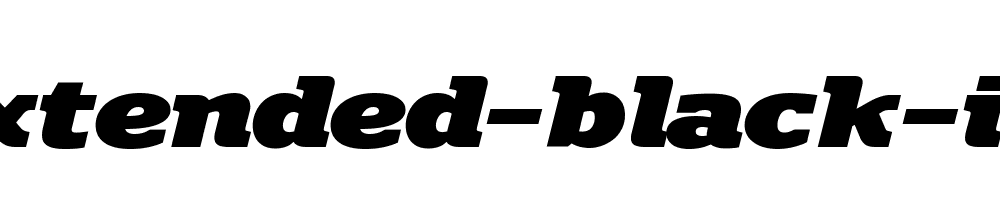
polyphonic-extended-black-italic-webfont
About polyphonic-extended-black-italic-webfont
The font “polyphonic-extended-black-italic-webfont” showcases a blend of sharp edges and sleek curves, creating a striking and bold appearance ideal for making a statement. The font’s apertures are generous, adding to its readability, while the apexes are sharp and distinct. The arc of the letters flows elegantly, giving the font an air of sophistication. Each arm is carefully crafted, contributing to the font’s overall balance. The ascenders are tall and proud, contrasting beautifully with the deep descenders that add a sense of drama. The font’s axis is straight and sturdy, providing a solid foundation for each character. The bilateral serifs are sharp and pointy, adding an element of modernity to the design. The bowls are generous and round, creating a harmonious effect when combined with the brackets. The counters are closed, giving the font a dense and compact look. The crossbars are strong and authoritative, adding to the font’s overall sense of stability. The crotch of each letter is carefully designed, adding a unique touch to the font’s overall aesthetic. The descenders are long and elegant, balancing out the tall ascenders. The ears of the font are small but impactful, adding character to each letter. The eyes are open and friendly, inviting the reader to engage with the text. The finials add a touch of flair to the font, giving it a distinctive and memorable look. The feet are sturdy and well-balanced, providing a strong foundation for each character. The font’s hairline strokes are delicate and refined, contrasting with the bold main strokes. The head serifs are sharp and angular, adding a modern twist to the design. The joints are seamless, creating a smooth overall appearance. The legs of the font are straight and confident, adding to its overall sense of stability. The ligatures are well-crafted, enhancing the flow between letters. The links connecting the necks are subtle but effective, creating a cohesive look. The loops are round and full, adding a playful touch to the font’s design. The overhangs are carefully balanced, creating a sense of movement and flow. The serifs are sharp and precise, adding a touch of sophistication to the font. The shoulders are broad and confident, giving the font a strong presence on the page. The spine of each letter is straight and tall, adding to the font’s overall sense of elegance. The spurs are sharp and defined, contributing to the font’s bold and striking appearance. The stems are robust and well-defined, providing a solid backbone for each character. The stress of the font is evenly distributed, creating a sense of harmony and balance. The tails are long and elegant, adding a touch of drama to the font’s overall appearance. The tittles are small but impactful, adding a touch of whimsy to the design. The terminals are sharp and precise, adding a sense of finality to each letter. The vertex of each character is sharp and well-defined, contributing to the font’s overall sense of precision and attention to detail.
Classified as Expressive, the font “polyphonic-extended-black-italic-webfont” is perfect for making a bold statement and commanding attention. Its sharp edges and sleek curves give it a modern and edgy look, while its generous apertures and elegant arcs add to its overall readability and sophistication. The font’s bold weight and italic style make it ideal for creating eye-catching headlines and titles that demand to be noticed. With its blend of classic serif elements and contemporary design details, this font strikes the perfect balance between traditional and modern aesthetics, making it versatile enough to be used in a variety of design projects. Whether you’re looking to add a touch of glamour to your branding or make a statement with your editorial design, the “polyphonic-extended-black-italic-webfont” font is sure to make a lasting impression.